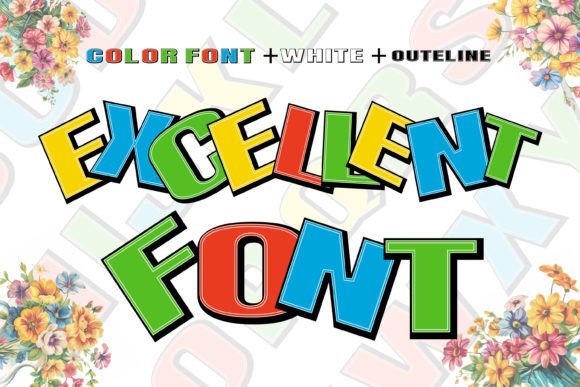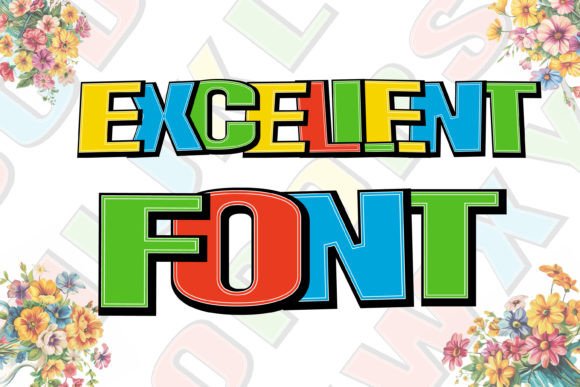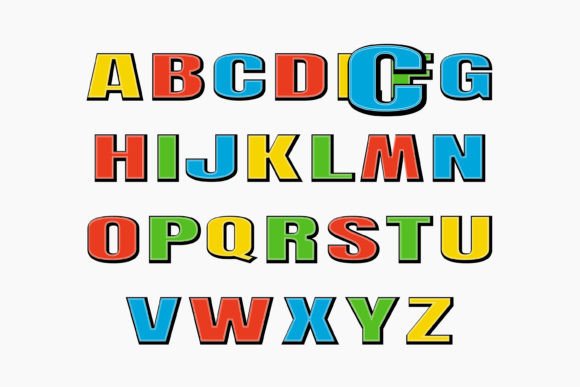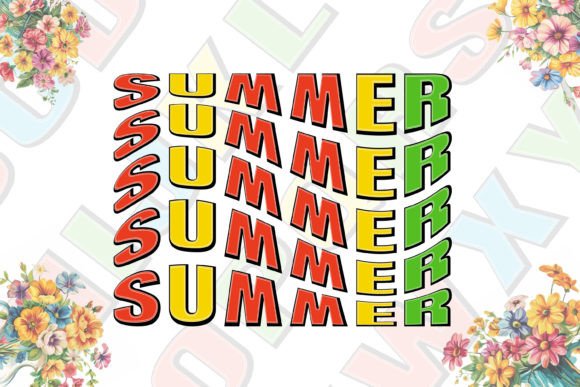
Excellent Font
About the Excellent Font
Discover the charm of Excellent Font. This font is a perfect blend of modern aesthetics and classic appeal. Introducing a vibrant splash to your creative projects, our color font embodies joy and whimsy that is bound to elevate your design endeavors. An absolute fit for branding initiatives, packaging designs, riveting logotypes, and gripping headlines, it also adds a sprinkle of charm to wedding invitations and similar creatives. Embrace and experience the transformative power of this uplifting font in your designs.
color version